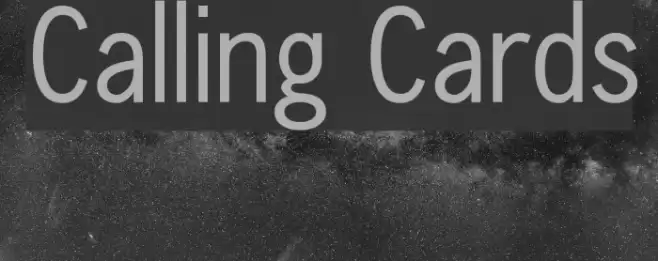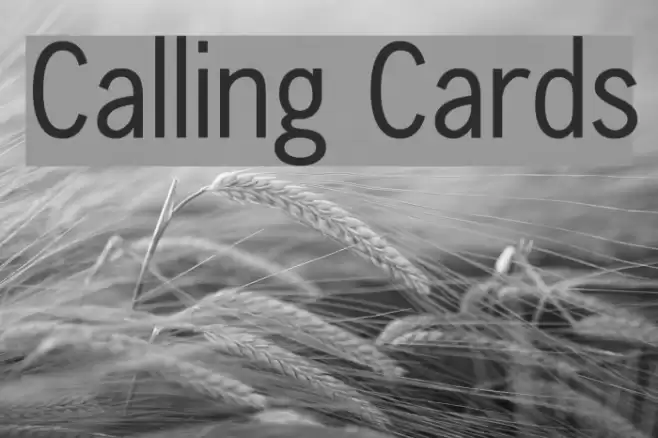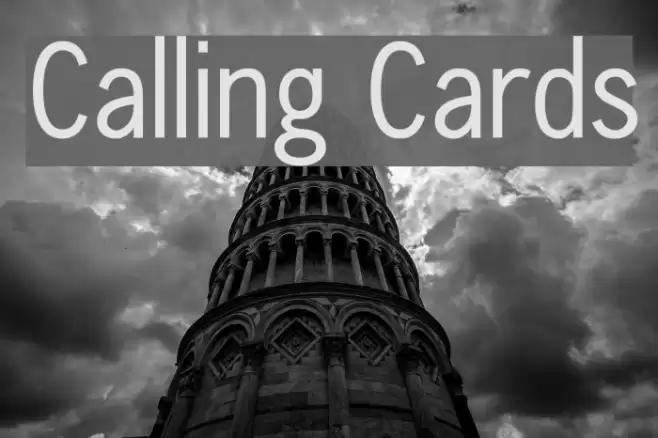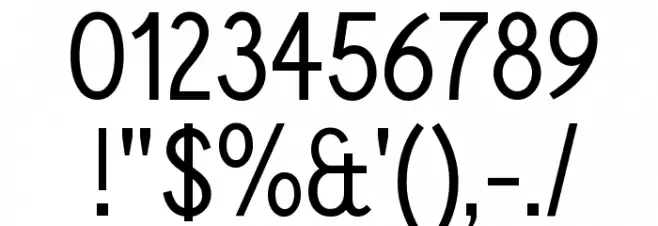
Calling Cards Font
Calling Cards Description
This font features a clean and modern sans-serif design, characterized by its simplicity and clarity. The letters are evenly spaced with a consistent stroke width, providing a balanced and harmonious appearance. The uppercase and lowercase letters are well-proportioned, making it highly legible at various sizes. The numerals are straightforward and align well with the overall style, while the special characters are distinct and easily recognizable. This font is versatile, suitable for both digital and print media, and can be used effectively in a wide range of design projects.
A clean, modern sans-serif font with balanced proportions and high legibility from Uncategorized fonts.
- Proposed Projects: Ideal for branding, web design, editorial layouts, and corporate communications.